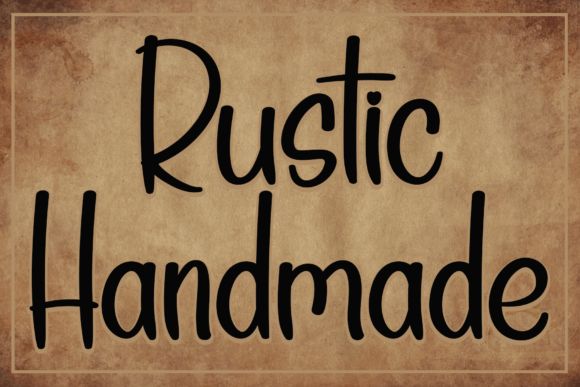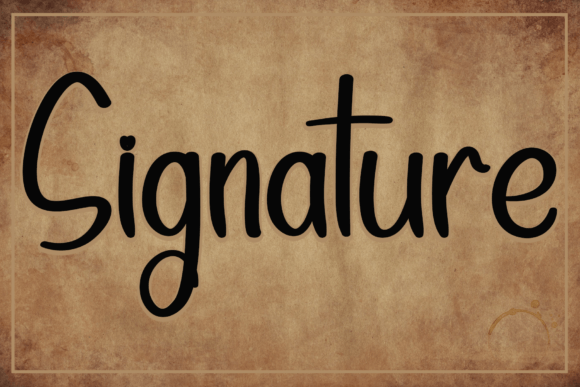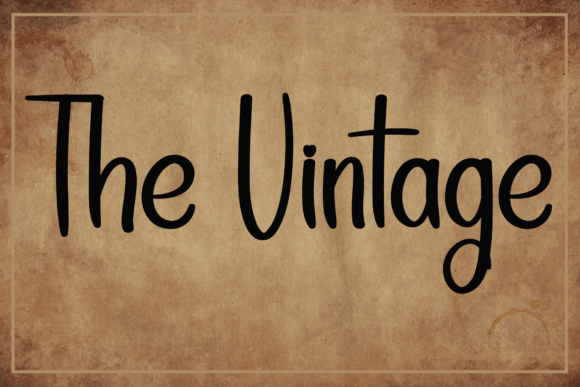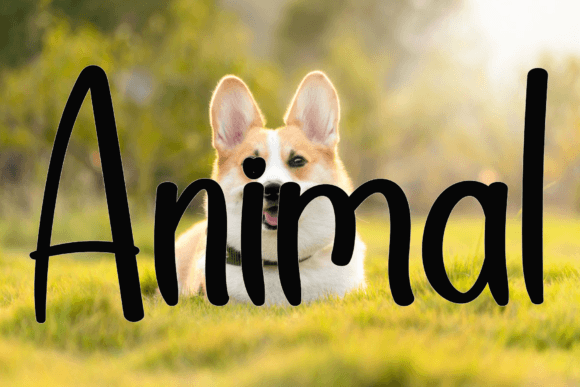
Rustic Handmade Font
About the Rustic Handmade Font
Discover the charm of Rustic Handmade Font. This font is a perfect blend of modern aesthetics and classic appeal. Rustic Handmade is a stylish handwritten font with a contemporary vibe and perfect shapes, inspired by timeless classic calligraphy. Balanced and varied, this font is designed to enhance the beauty of your project.
Rustic Handmade excels in headlines, short paragraphs, and branding applications where its handcrafted charm adds a touch of authenticity. It’s ideal for projects requiring a casual yet sophisticated feel, such as logos for artisanal food brands, boutique hotels, or wedding invitations. Avoid using it for large blocks of body text or user interfaces, as its irregular letterforms can hinder readability.
Pairing Rustic Handmade with a clean sans-serif like Lato or a geometric sans-serif like Montserrat creates a pleasing contrast, balancing its hand-drawn informality with modern clarity. For a more luxurious feel, consider pairing it with a classic serif font such as Garamond or Didot.
The font’s overall personality is best described as sophisticated yet approachable; it projects a sense of handmade quality and understated elegance, making it well-suited to brands that value craftsmanship and authenticity.